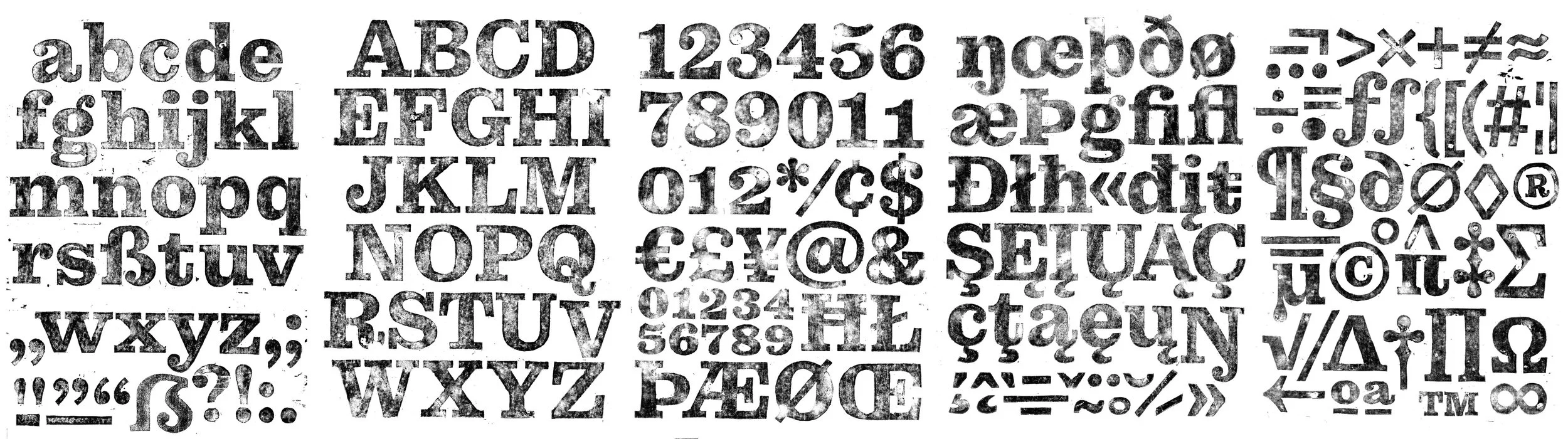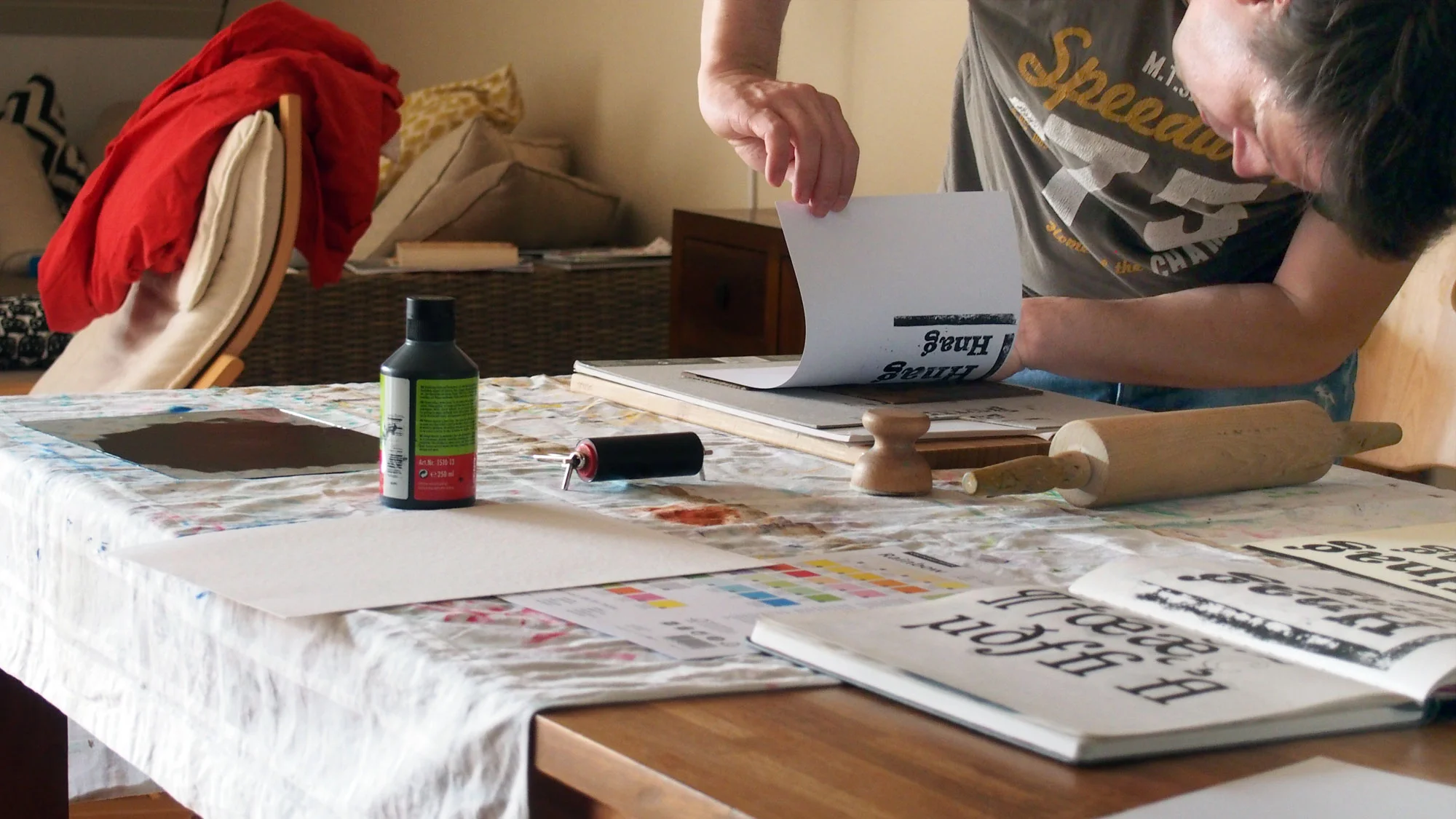
I have been enthusiastically following the development of Felix Braden (Floodfonts) latest typeface Kontiki. This typeface excites me on multiple levels, but one of the aspects most interesting is how Felix has translated form back and forth through different mediums and technologies.
In this overtly digital environment, we operate in the is an unmistakable allure to all things analogue and handmade.
So it is no surprise that the genre of distressed typefaces that are digital creations with analogue aesthetics are growing in number. But what sets Kontiki apart from other faces in this category is that it was faithfully produced analogue in an exhaustive carve/print process and then digitized. As a result, Kontiki has an authenticity, warmth and variance which sets it head and shoulders above its peers.
To create the Kontiki fonts, Felix began by combining the shape grammar of Clarendon with the contrast of century schoolbook. He first drew a light and a black of his work-in-progress hybrid typeface before digitally interpolating to generate a bold weight. Then, Inspired by his wife's hand-carved woodcuts, Felix drew 193 glyphs which were manually cut (at a size of around 150 points) on wooden plates before being carefully printed by hand.
Felix notes the choice of paper was a difficult task. Eventually, he chose a matte coated printing paper with a very smooth surface, because he wanted to show the misprints in the image and not the effects caused by the structure of the paper. All plates were printed in an edition of 30 with different print qualities: a print with full pressure, a half pressure print, and two subsequent prints without re-inking.
From these experimental test prints, the most charming four of each character were selected, scanned and digitized to create Kontiki's 4 different styles. Functionality was at the forefront of Felix's mind throughout the development process...
Prior to being translated into vector formats, the scans were simplified using Gaussian Blur and Median filters. This allowed Felix to ensure a small file size and optimize font performance by keeping each glyph to around 1000 nodes as a maximum, and by replacing curves with straight lines.
Once in a workable digital format, the characters were brought into Glyphs App to develop the fonts. The character set was expanded to include 560 glyphs enabling broad language support. The Pro version contains all 2240 glyphs as “stylistic alternates” in one font with optimized kerning for all style combinations.
This development of this type system is an admirable undertaking. And the resulting fonts hero Felix attention to detail and dedication to the production narrative. The Kontiki typeface offers designers the aesthetics of a traditional relief print as well as the flexibility and efficiency of digital creation, masterfully spanning these technologies.